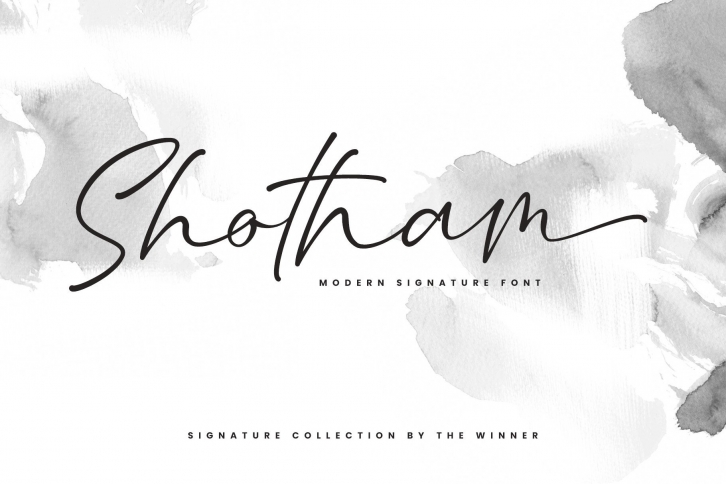
Shotham is a fashionable and delicate script font. It has a clean, thin and smooth vibe and it will be a hit for any design that you want to add it to.Â